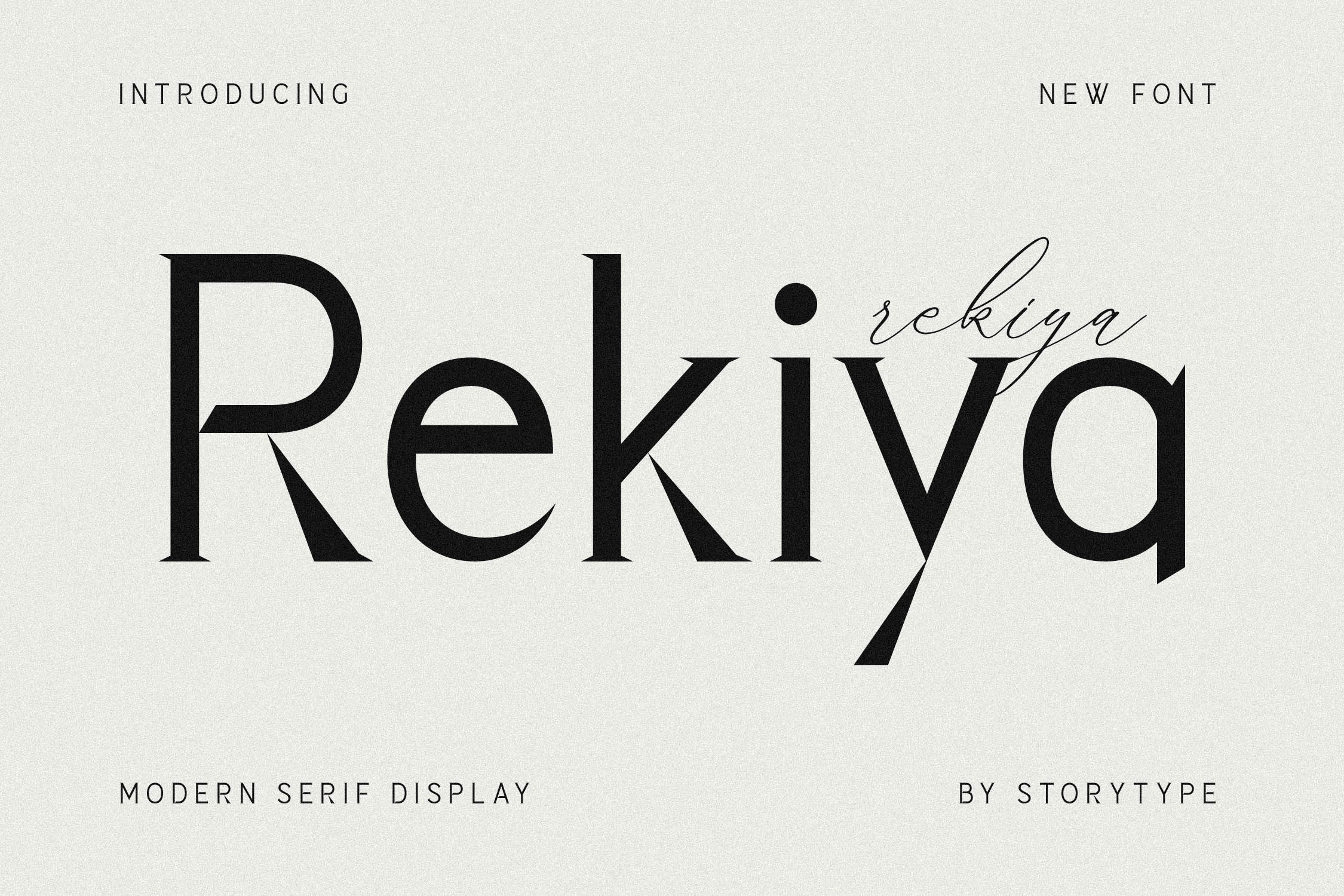
Rekiya Modern Serif Display Font
Proudly present Rekiya Modern Serif Display , created by Storytype, A luxury script that has own unique style & modern look. This typeface is perfect for an elegant & luxury logo, book or movie title design, fashion brand, magazine, clothes, lettering, quotes, and so much more.